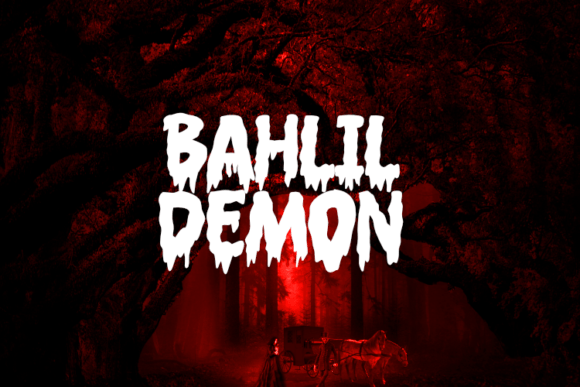
Bahlil Demon Font: Unleash the Spooky Charm in Your Creative Projects
Are you looking for a font that can add a touch of spookiness and creativity to your projects? Look no further than the Bahlil Demon Font. This cool display font is perfect for designers, artists, and crafters who want to add a unique and eye-catching element to their work. In this article, we’ll explore the features and benefits of the Bahlil Demon Font and how you can use it to take your creative projects to the next level.
What is Bahlil Demon Font?
Bahlil Demon Font is a display font designed to add a touch of spookiness and playfulness to your creative projects. The font features a unique and intricate design, with bold lines and sharp edges that give it a demonic and mysterious look. The font is perfect for use in a variety of projects, including posters, flyers, brochures, and social media graphics.
Key Features of Bahlil Demon Font
- Unique and eye-catching design: The Bahlil Demon Font features a one-of-a-kind design that is sure to grab attention and add a touch of personality to your projects.
- Spoky and playful vibe: The font’s demonic and mysterious look gives it a spooky and playful vibe that’s perfect for Halloween-themed projects or any other project that requires a touch of whimsy.
- Bold and sharp lines: The font’s bold lines and sharp edges give it a bold and edgy look that’s sure to make your projects stand out.
Benefits of Using Bahlil Demon Font
So why should you use the Bahlil Demon Font in your creative projects? Here are just a few benefits of using this amazing font:
- Adds a touch of personality: The Bahlil Demon Font adds a unique and eye-catching element to your projects, setting them apart from the crowd.
- Perfect for spooky projects: The font’s spooky and playful vibe makes it perfect for Halloween-themed projects or any other project that requires a touch of whimsy.
- Versatile: The Bahlil Demon Font can be used in a variety of projects, from posters and flyers to brochures and social media graphics.
- Easy to read: Despite its bold and edgy design, the Bahlil Demon Font is easy to read, making it perfect for use in projects where legibility is important.
Creative Project Ideas Using Bahlil Demon Font
The Bahlil Demon Font is a versatile font that can be used in a variety of creative projects. Here are a few ideas to get you started:
- Halloween-themed posters and flyers: Use the Bahlil Demon Font to create spooky and eye-catching posters and flyers for Halloween parties and events.
- Social media graphics: Add a touch of personality to your social media graphics with the Bahlil Demon Font.
- Brochures and catalogs: Use the font to add a unique and eye-catching element to your brochures and catalogs.
- T-Shirt designs: Create bold and eye-catching t-shirt designs using the Bahlil Demon Font.
Tips and Tricks for Using Bahlil Demon Font
Here are a few tips and tricks to help you get the most out of the Bahlil Demon Font:
- Experiment with font sizes and colors: Don’t be afraid to experiment with different font sizes and colors to find the perfect combination for your project.
- Use the font in combination with other fonts: The Bahlil Demon Font pairs well with other fonts, so don’t be afraid to use it in combination with other fonts to create a unique look.
- Pay attention to legibility: While the Bahlil Demon Font is easy to read, it’s still important to pay attention to legibility, especially when using the font in smaller sizes.
The Bahlil Demon Font is a unique and eye-catching font that’s perfect for designers, artists, and crafters who want to add a touch of spookiness and personality to their creative projects. With its bold lines, sharp edges, and spooky vibe, this font is sure to grab attention and add a touch of whimsy to your projects. So why wait? Download the Bahlil Demon Font today and start unleashing the spooky charm in your creative projects!